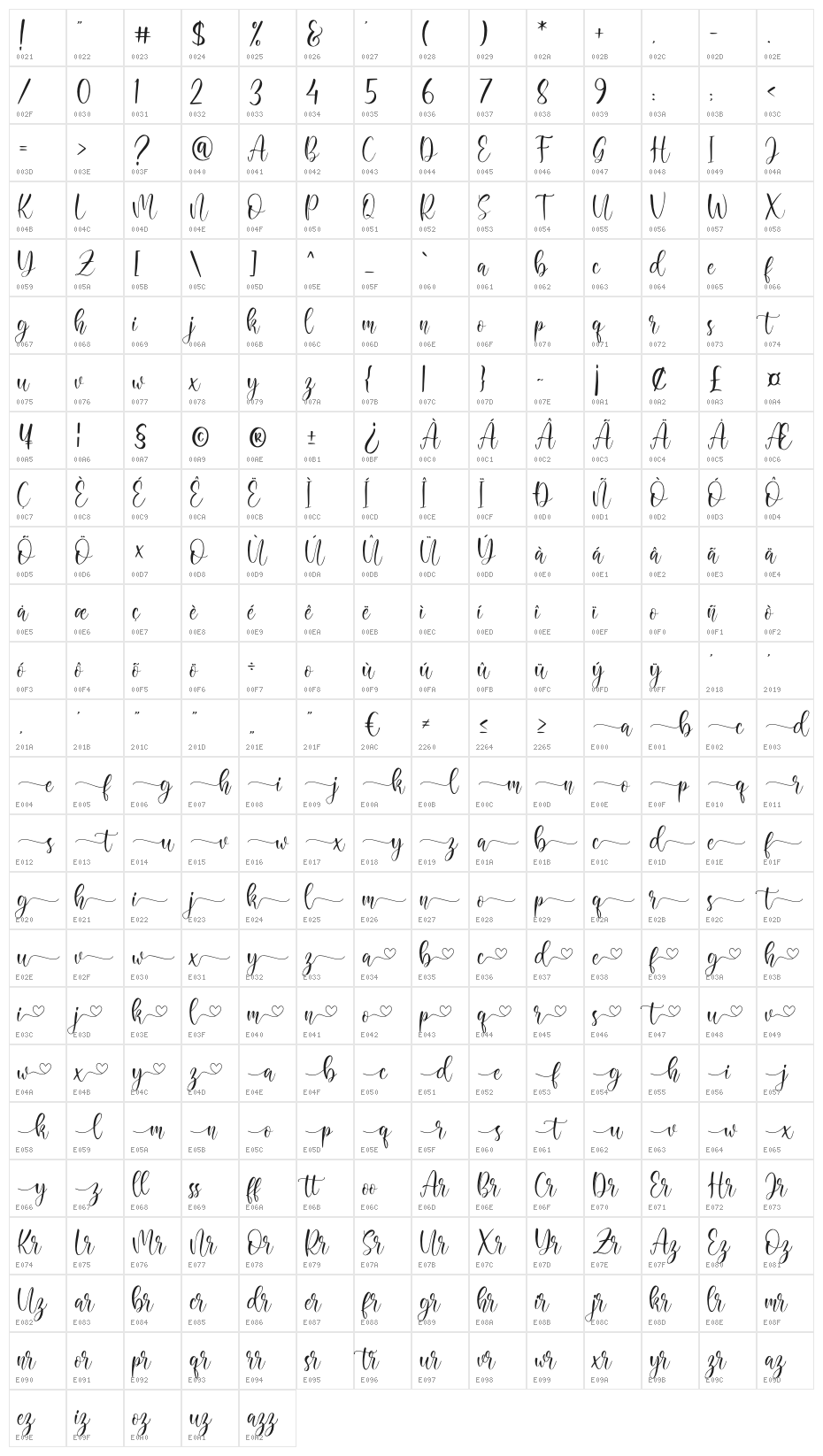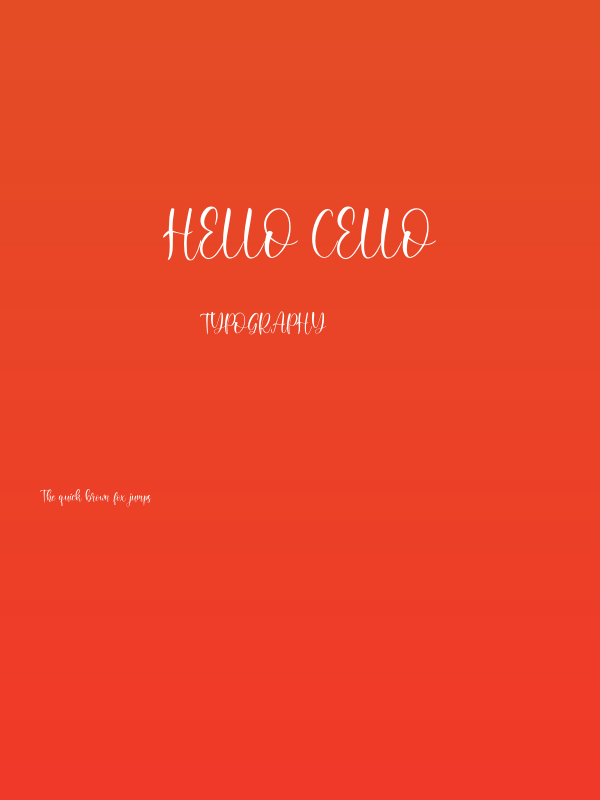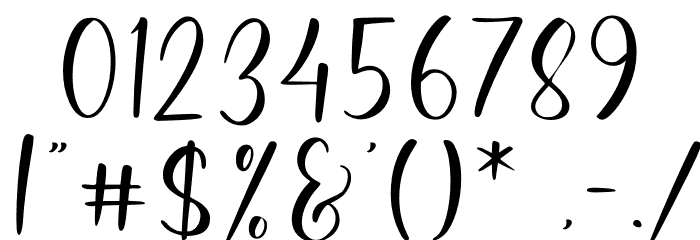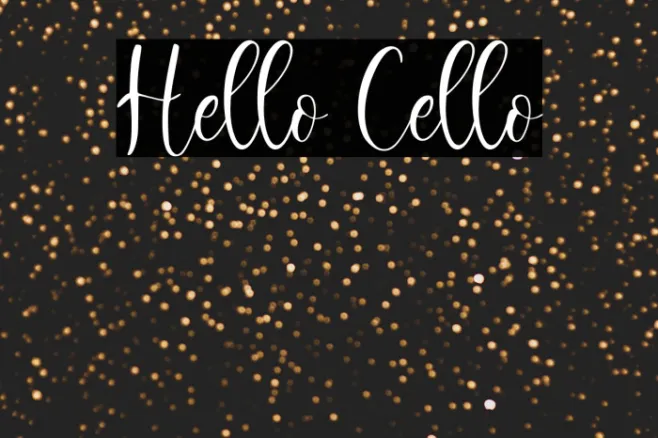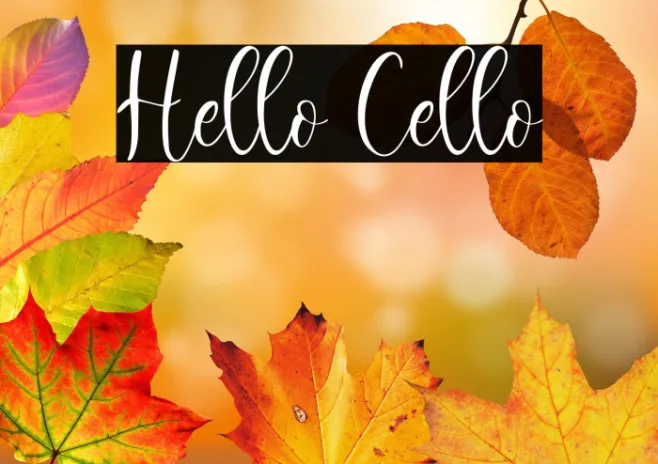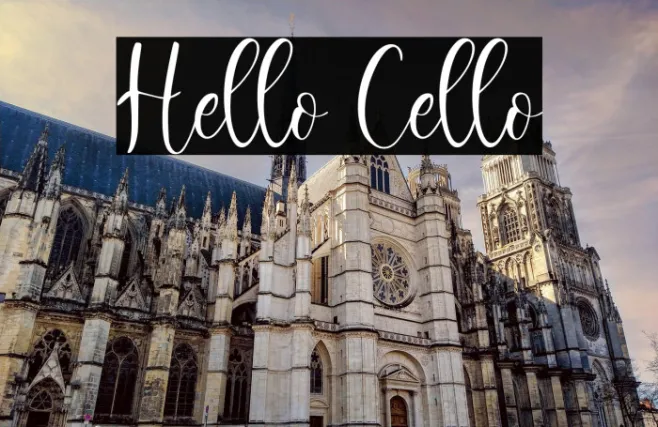
Hello Cello Font
Hello Cello Description
This font features a lively and elegant script style with a modern twist. The uppercase letters are characterized by their flowing, interconnected strokes, giving a sense of movement and grace. The lowercase letters maintain this fluidity, with some characters featuring unique loops and swashes that add a playful touch. The numerals are bold and slightly slanted, complementing the overall style. Special characters are thoughtfully designed to match the script's aesthetic, ensuring consistency throughout. This font is perfect for projects that require a personal and artistic feel.